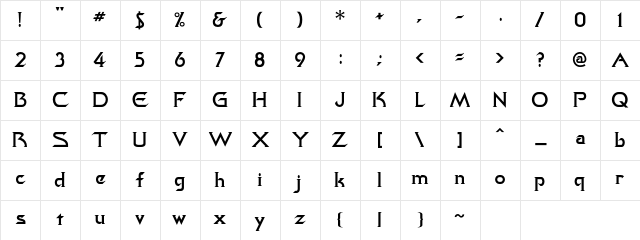
Star wears its vintage influences proudly, with letterforms that recall mid-century signage, classic packaging, and nostalgia-driven design.
Font Pairing: Combine Star with a simple slab or neutral sans - period-accurate companions reinforce the vintage feel without competing for attention.
Pro Tip: Lean into Star's period character by pairing it with aged paper textures, muted colour palettes, and vintage illustration styles.